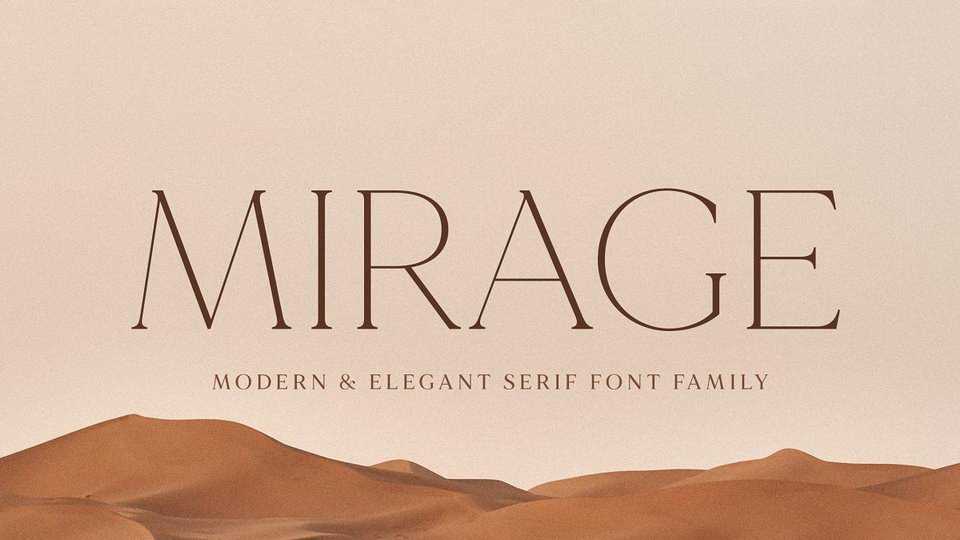
Download MADE Mirage typeface, a modern elegant serif font family. MADE Mirage will perfect for many project: fashion, magazines, logo, branding, photography and more.
Designer: Made Type